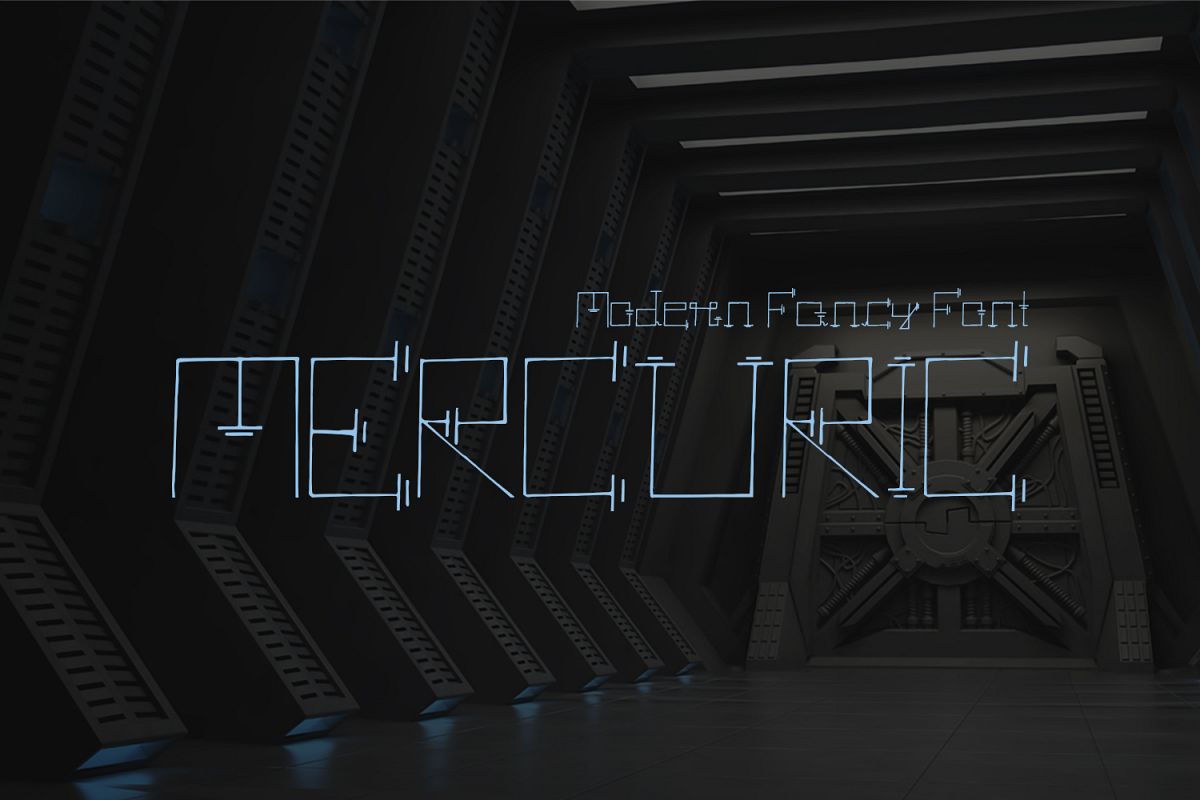
Mercuric Fancy Font
Mercuric Regular
Mercuric is a futuristic font. You can use it for Technology, Science, Web, Computer areas and on many more projects. It is a single font. It is good for making creative templates and stationary. Mercuric font can be good for modern / clean designs, logos, headlines, banners and templates etc.It looks gorgeous in all caps with a wide-set spacing if you want to try a futuristic look, or beautiful on its own in capital and lowercase letters for something completely timeless.Included Features:
Highlights
• Mercuric is a highly versatile Font.
• The perfect choice for Future, Modern, Fashion & Magazine Titles.
• Great for use on quotes, short phrases, magazines, logotypes and all sorts of advertising.